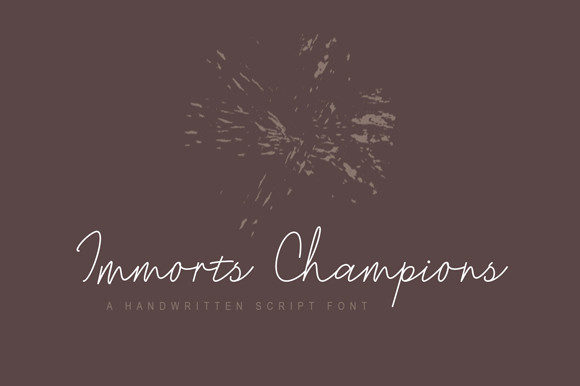
Indulge in the enchanting world of Immorts Champions, a captivating script font that will ignite your creativity and leave a lasting impression. Its graceful curves and flowing lines evoke a sense of elegance and sophistication, making it the perfect choice for heartfelt love letters, romantic wedding invitations, and any project that calls for a touch of magic.
Immorts Champions is a masterpiece crafted with meticulous attention to detail, ensuring that each glyph and swash is flawlessly rendered. Its PUA encoding empowers you to effortlessly access its full repertoire, unlocking endless possibilities for your designs.
With Immorts Champions at your fingertips, you'll elevate your words to new heights, creating an unforgettable visual experience. Its versatility knows no bounds, lending itself seamlessly to a myriad of design concepts. Whether you're crafting a polished resume that exudes professionalism or designing an enchanting logo that captures the essence of your brand, Immorts Champions is your steadfast companion.
So why settle for ordinary fonts when you can embrace the extraordinary? Immerse yourself in the captivating allure of Immorts Champions and witness the transformative power it holds for your creative endeavors. Let its romantic charm inspire your designs and make a statement that resonates with beauty and elegance.